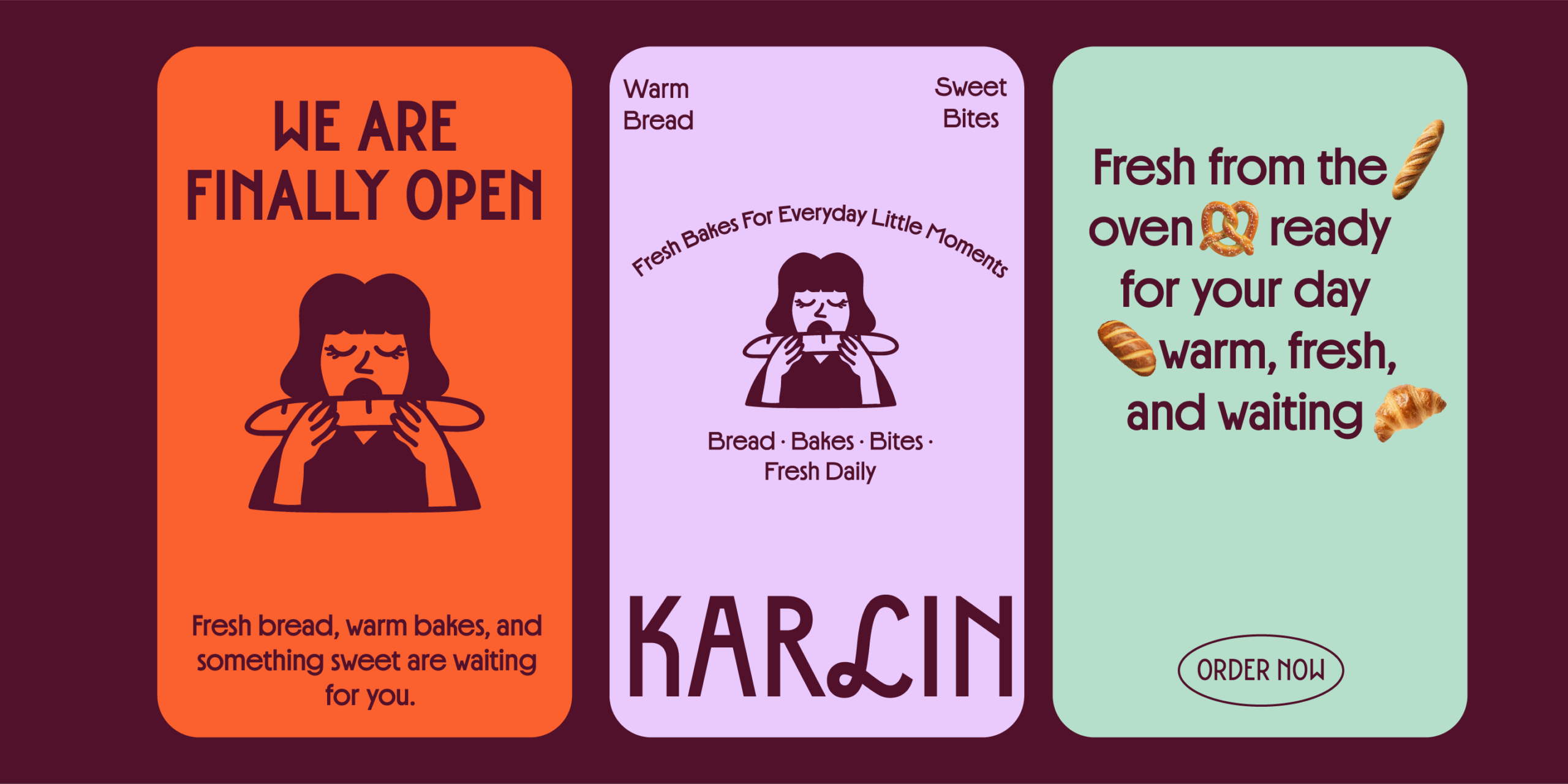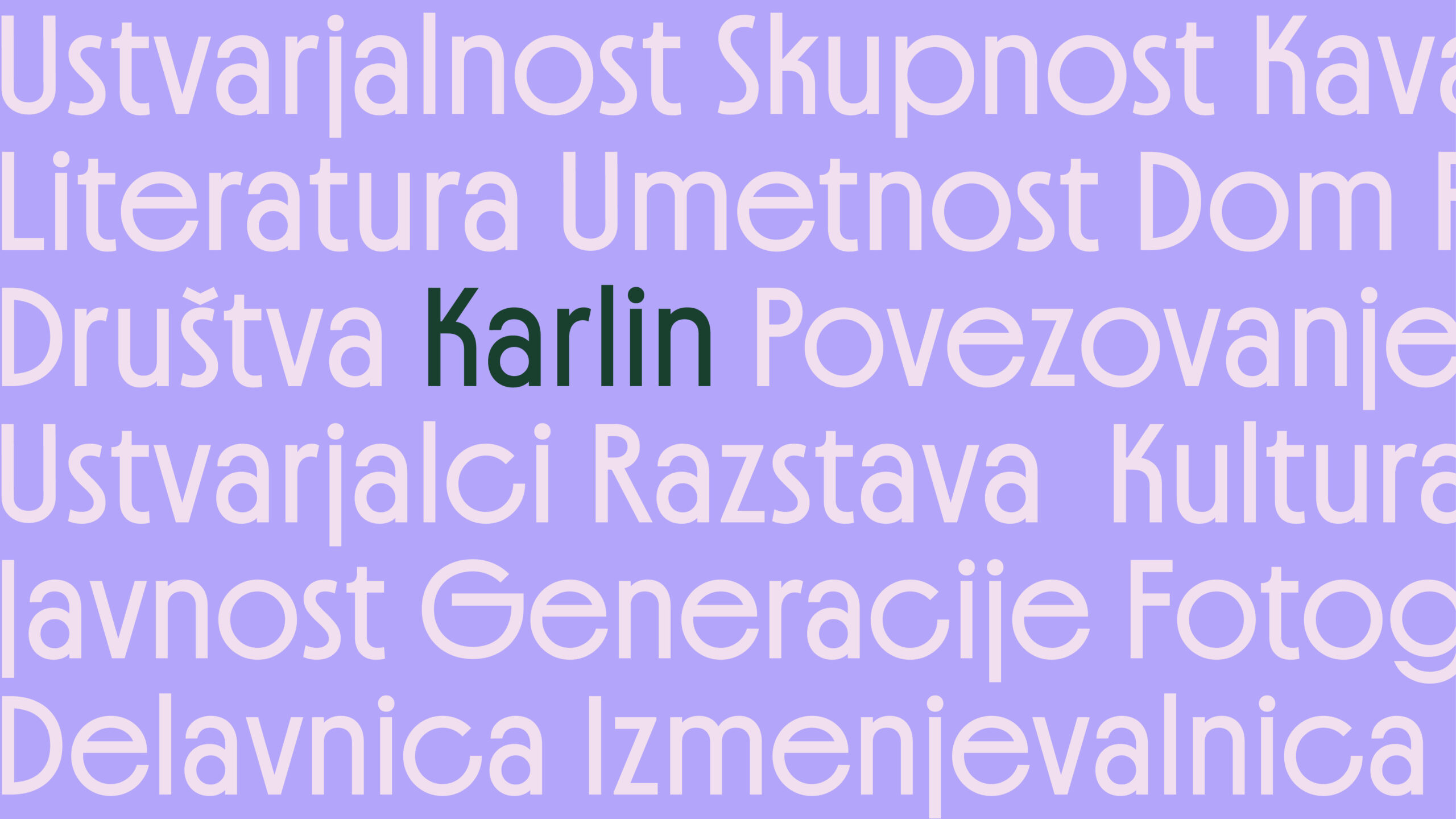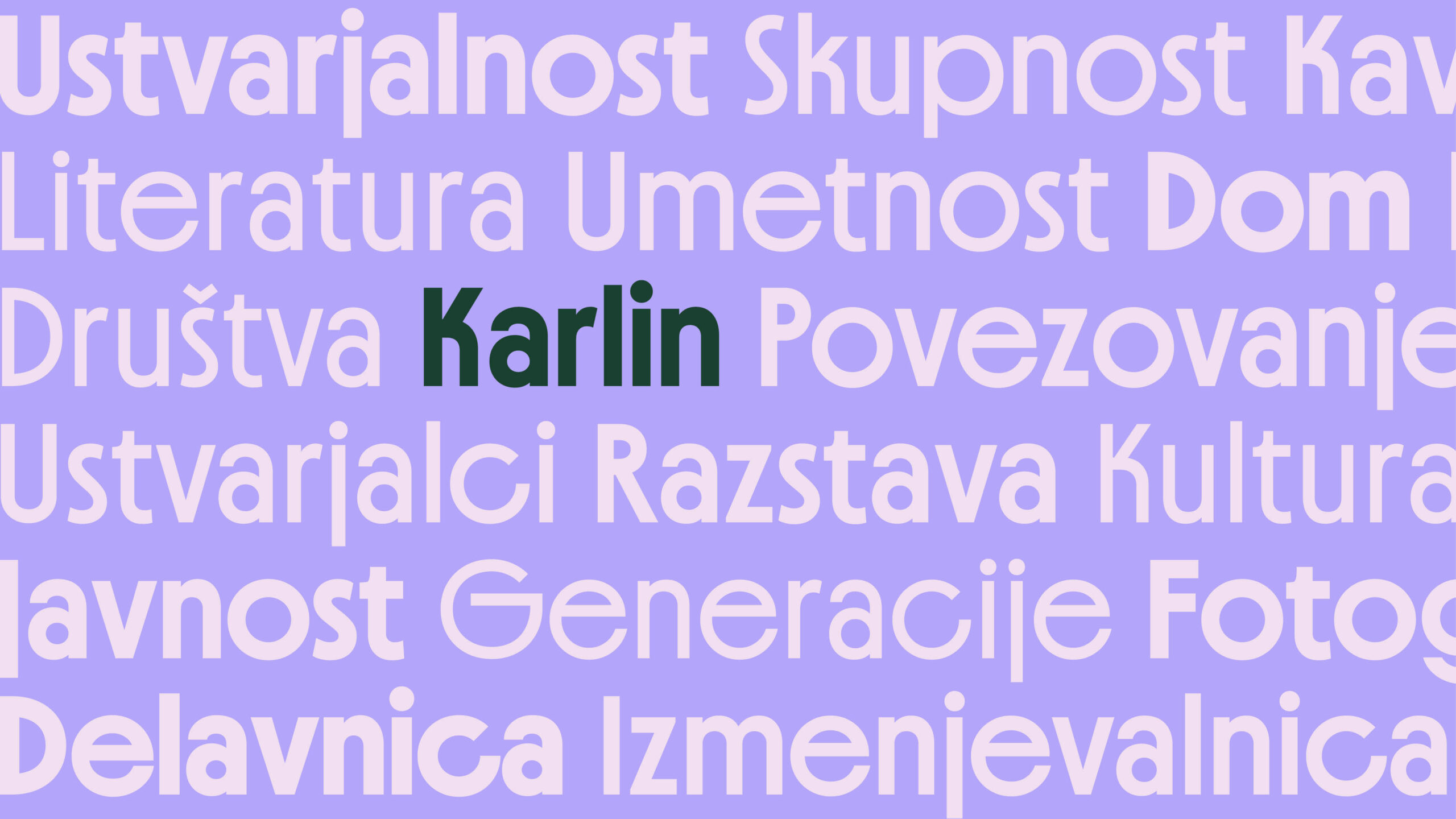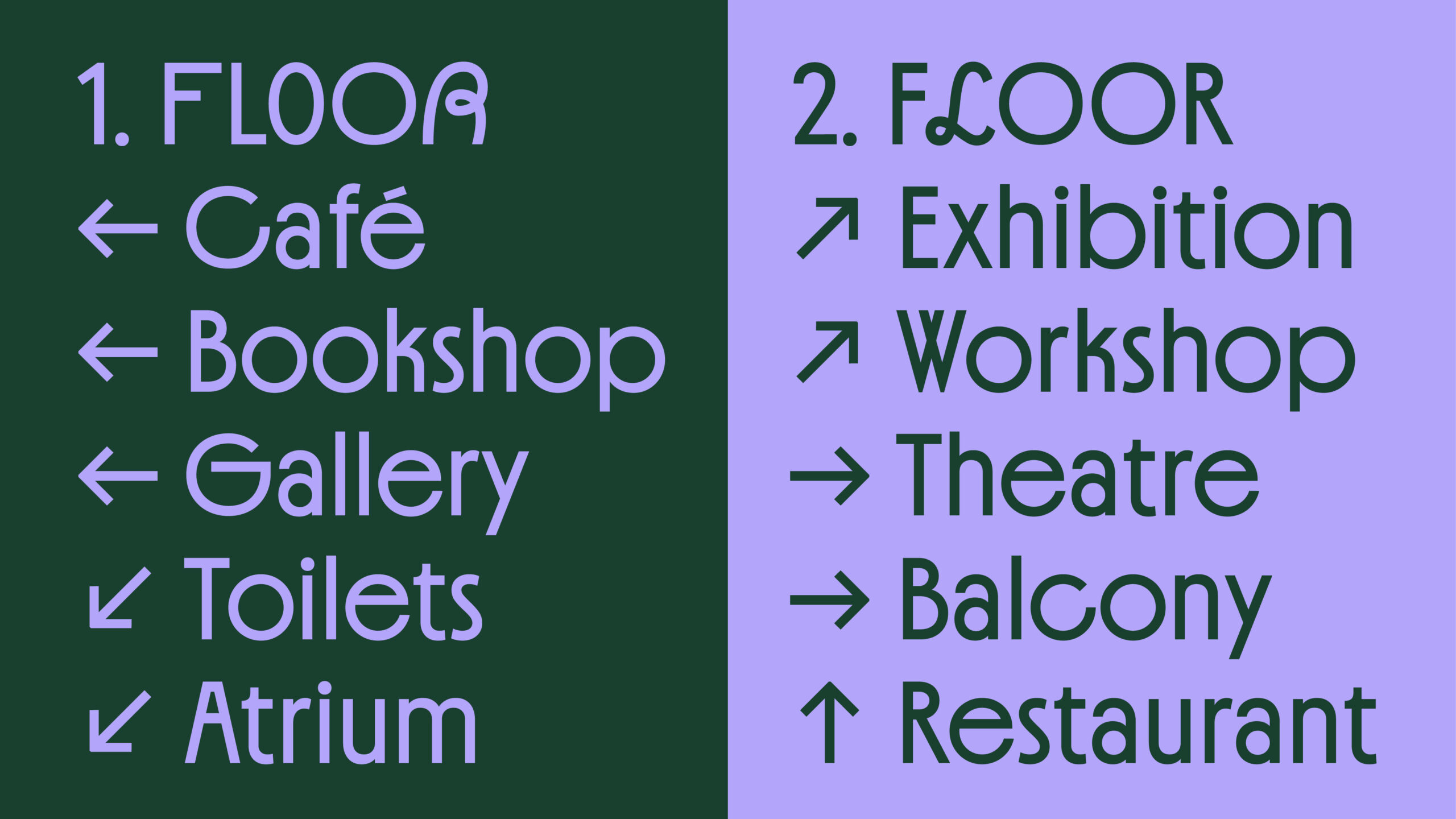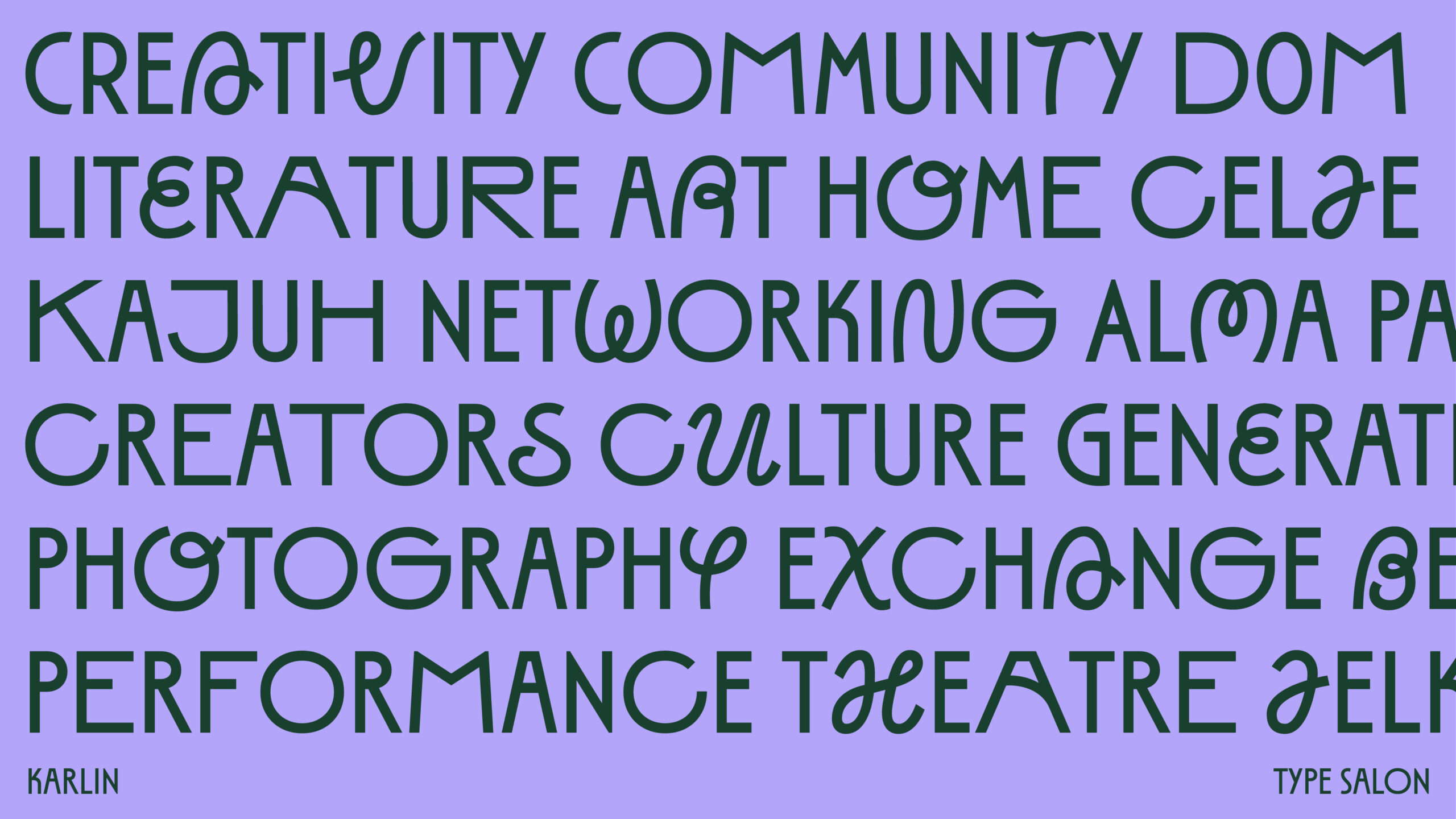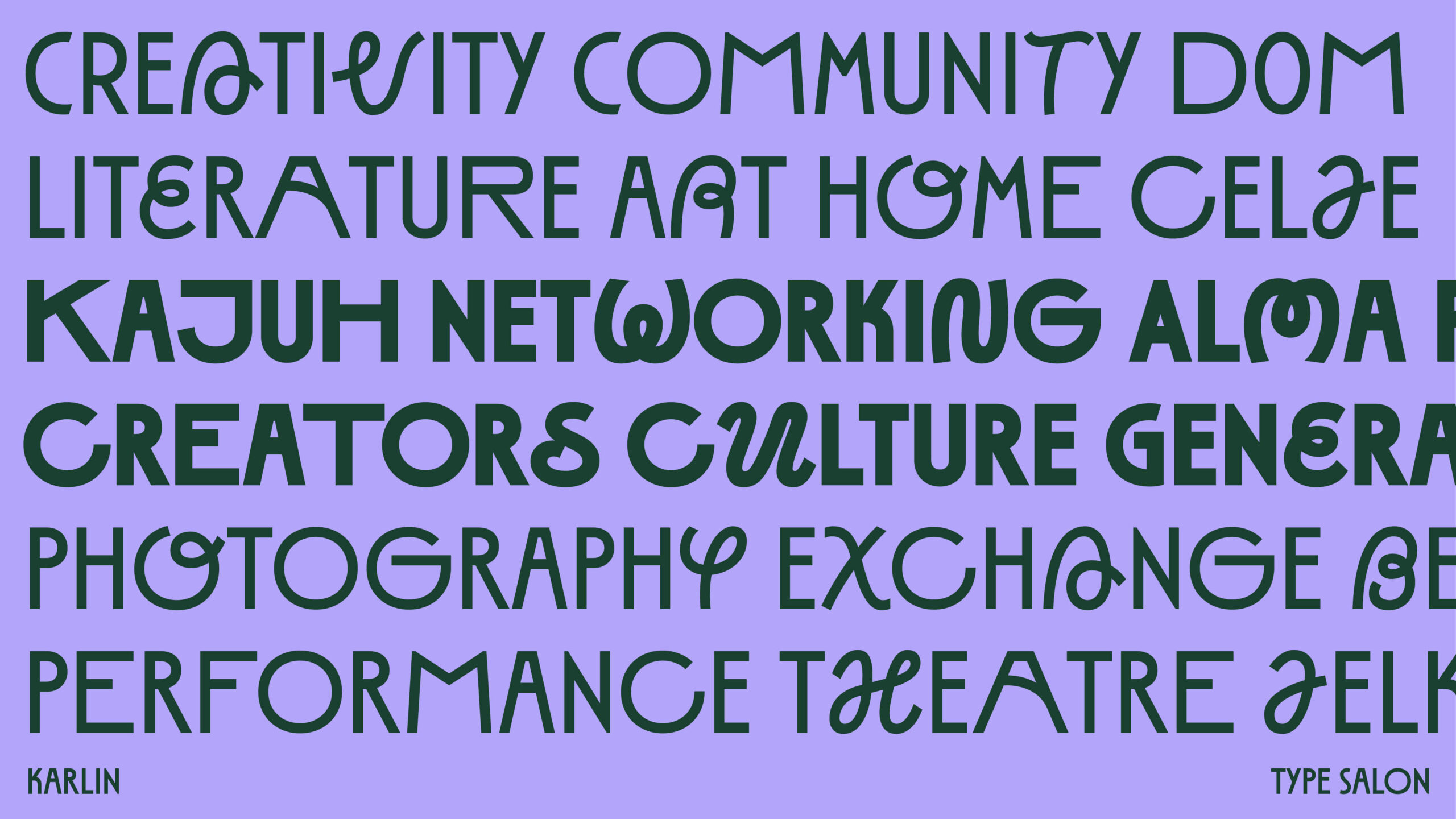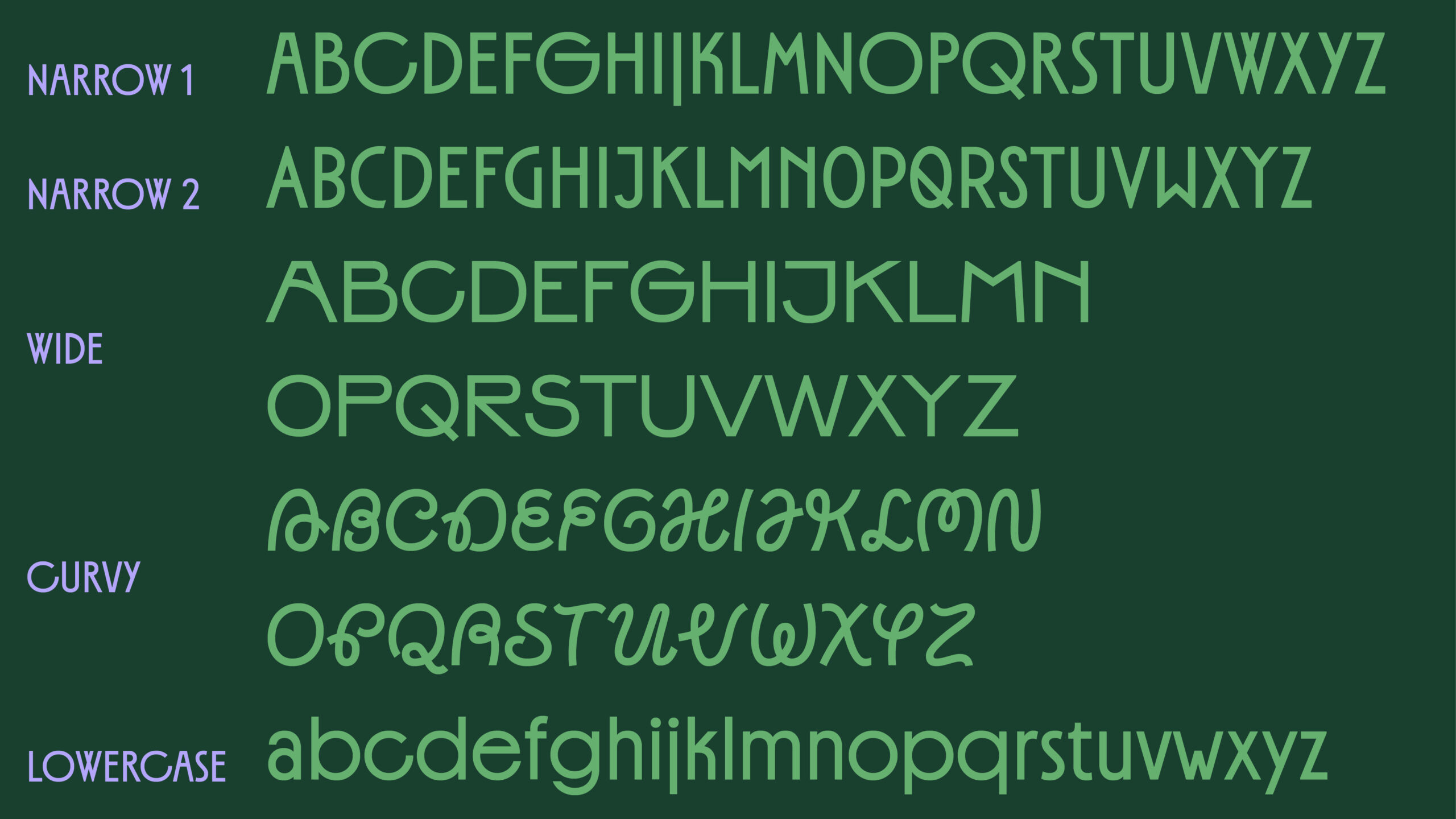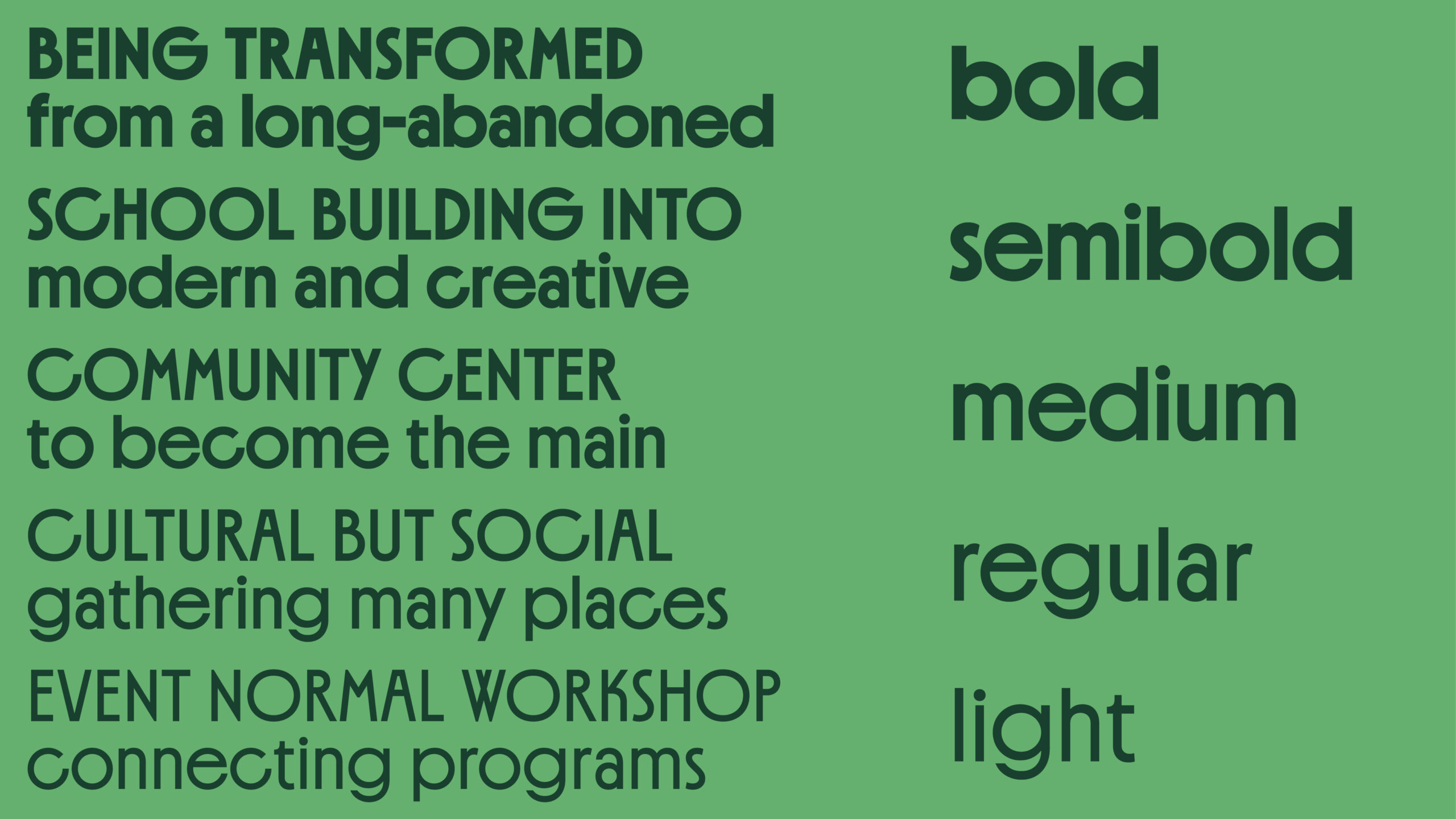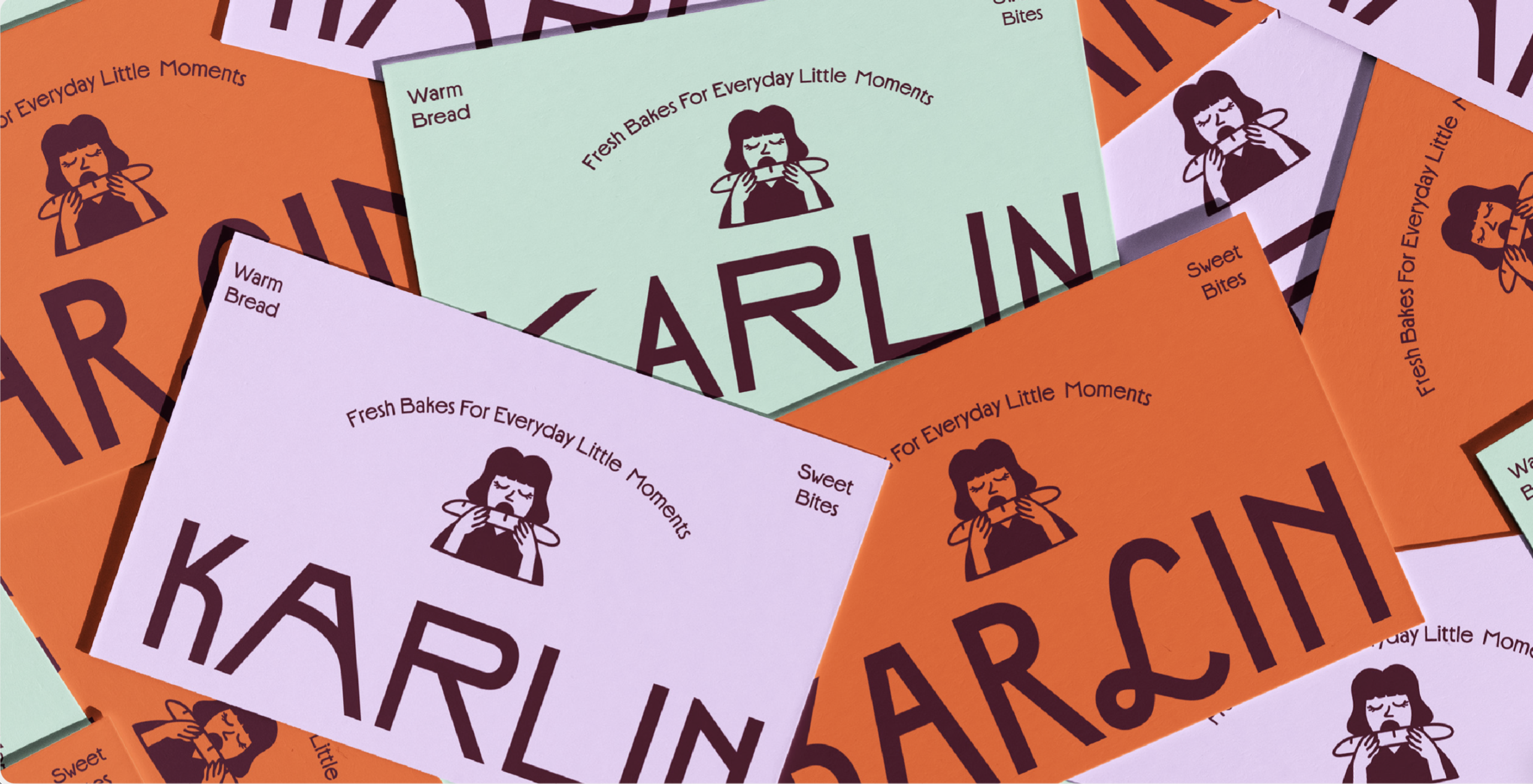
Typeface Karlin was designed for the graphic identity of the new home of creative communities – DOM, which provides space for creators in theatre, film, contemporary dance, music, painting, and other visual arts, as well as writers, architects, designers, and associations in the field of amateur culture led by Municipality of Celje.
Karlin reflect the idea of combining various activities under the creative fields of art and craft, including different versions of every letter, narrow, wider and hand written – curvy shape. It is playful, versatile and adds unique voice to visuals.
Home for creative comminuty
KARLIN EXHIBITION GALLERY WORKSHOP